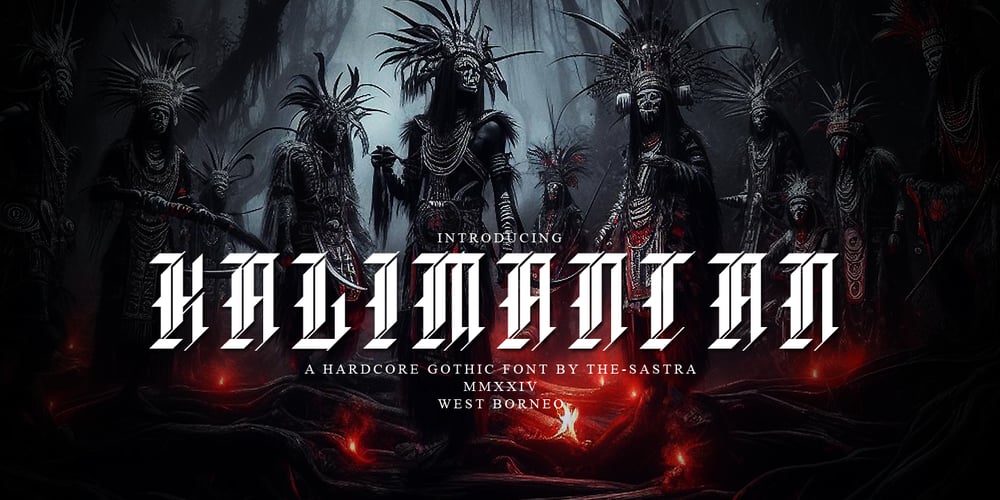
Kalimantan Font Family was designed by Deni Dessastra and published by the-sastra. Kalimantan contains 1 styles and family package options. This Kalimantan font is inspired by Tribe, Borneo culture and tattoo.Kalimantan font is perfect for badges, branding, labels, apparel, headlines, signage, logo, quote, apparel and other creative applications.For any help regarding this file, please feel free to contact me.Thank you